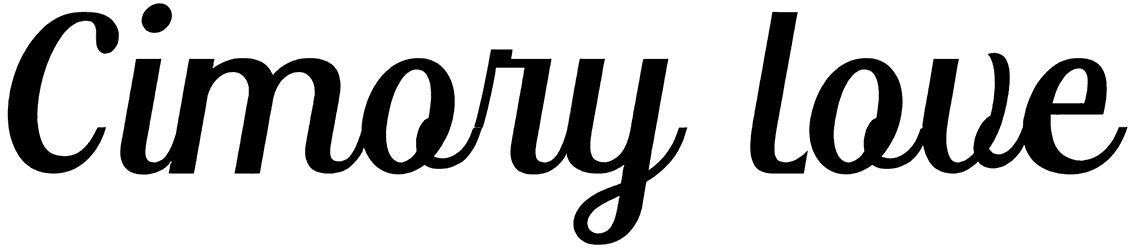
Cimory Love Font
The classic and lovely face of a script font like this one will give a sweet and unique mood to your novel design. The Cimory Love font includes all characters in a smooth and curvy form that could be amazing for many designs namely a Valentine’s Day postcard. Give this love font a chance and set it for your next project to see the beautiful result.